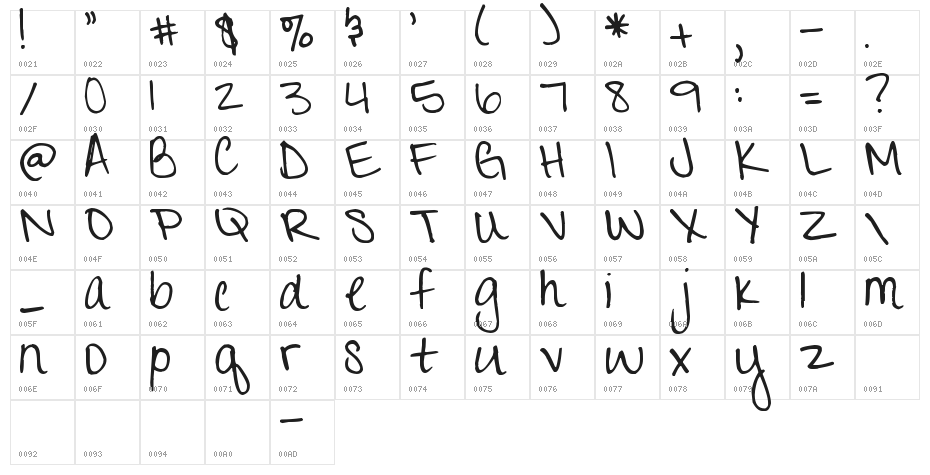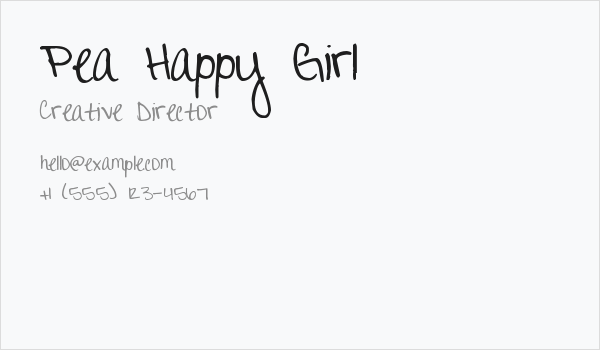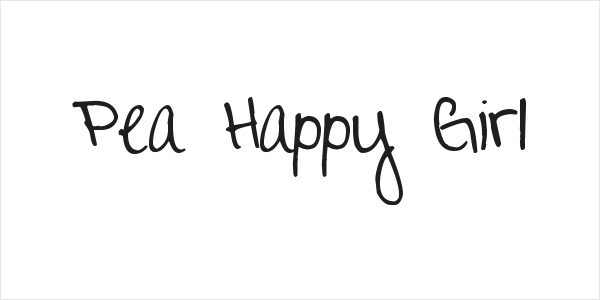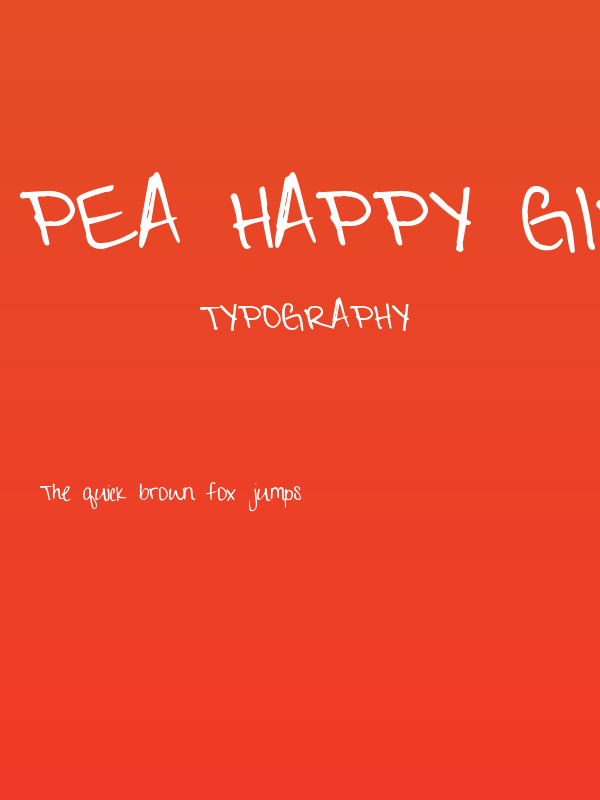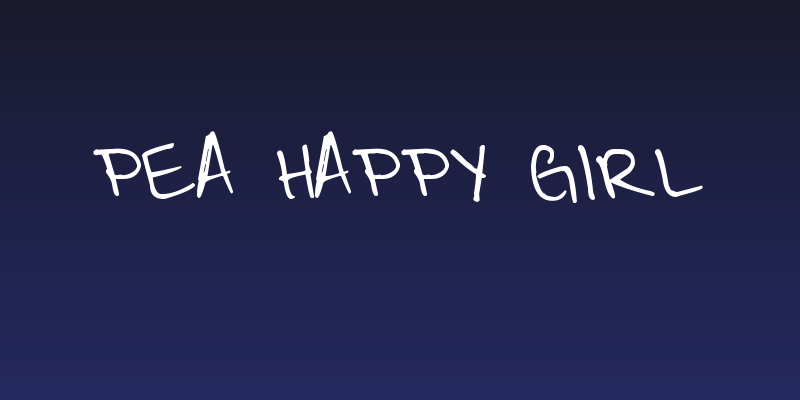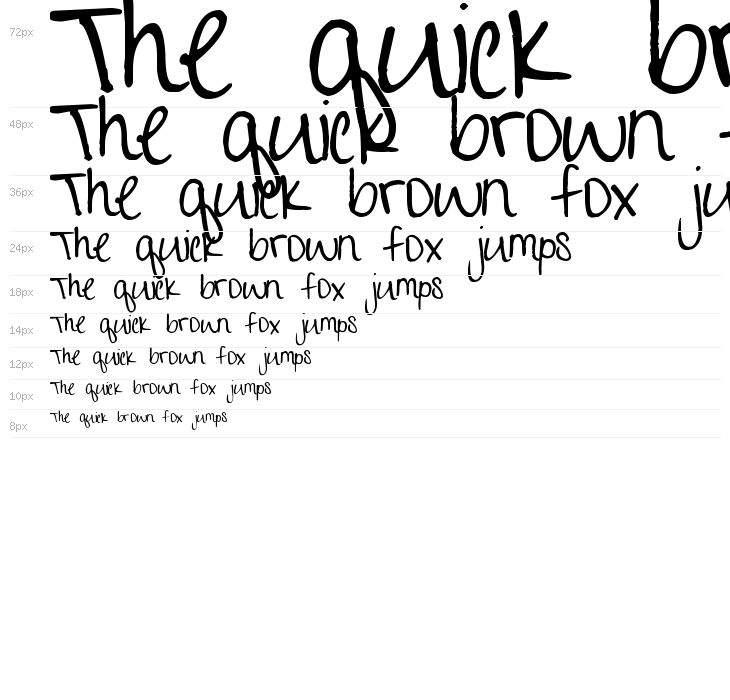
Pea Happy Girl Font
Pea Happy Girl Description
This font exudes a playful and casual handwritten style, characterized by its loose and flowing strokes. The letters are slightly uneven, adding to its charm and informal appeal. The uppercase and lowercase letters maintain a consistent style, with rounded edges and a slight slant, giving it a dynamic and lively appearance. The numbers and special characters follow the same playful aesthetic, making it versatile for creative projects. Its informal nature makes it perfect for designs that aim to convey friendliness and approachability.
| Proposed Projects | Ideal for greeting cards, children's books, personal blogs, and playful branding projects. |